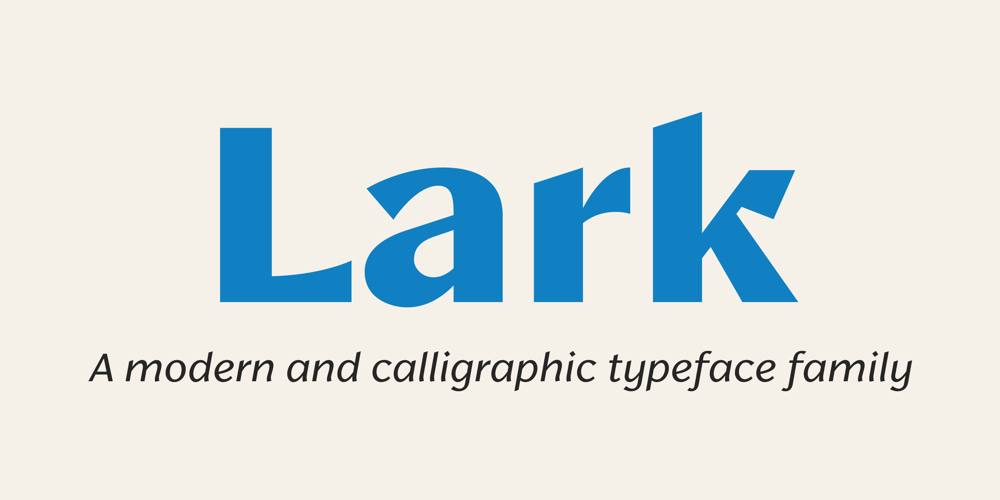
Lark Font Family was designed by Shana Hu and published by Shana Hu. Lark contains 8 styles and family package options. Lark is a modern calligraphic sans inspired by a rich history of broad-edge and translation contrast calligraphy. By combining its sharp geometry with flared curves, Lark exhibits a nice warmth as a display face. Lark was initially conceived as a final project as part of the Type@Cooper West Extended Program’s post-graduate certificate program in typeface design, so its journey has benefitted from routine feedback from experienced typeface designers. Comes in Bold, Medium, Regular, and Light weights for both roman and italic, and supports multiple languages including Danish, Dutch, English, French, German, Italian, Portuguese, Spanish, Swedish, and more.